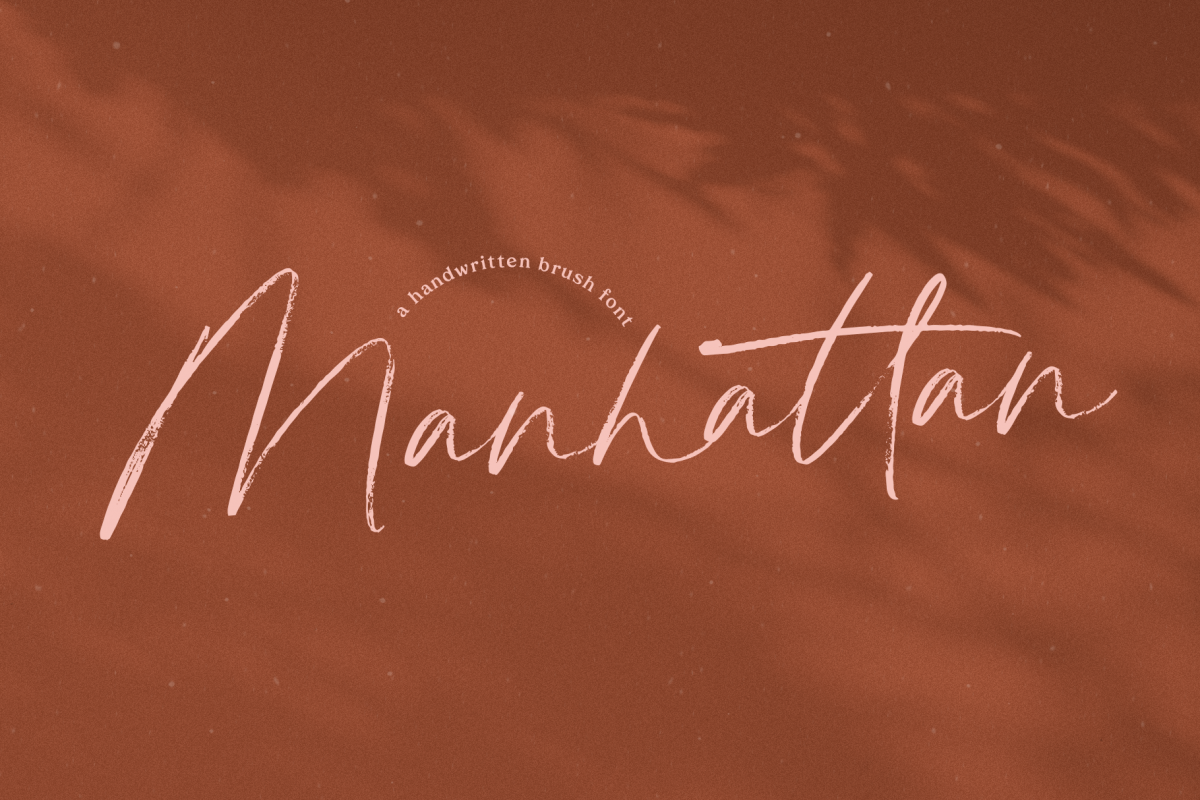
Manhattan - A Brush Script Font
Manhattan
Manhattan is brush font with a carefree look!
Manhattan is perfect for modern projects, headings, blogs, logos, brandings, invitations and more!